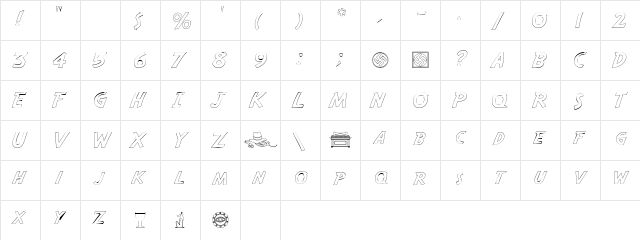
SafariOutline Regular
Design Context for SafariOutline Typeface
SafariOutline is built around its visual character rather than neutral utility — its distinctive forms are designed to make an impression at display sizes.